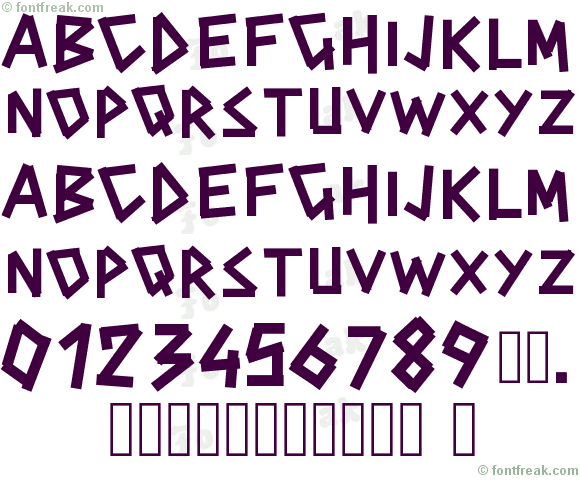
PWCINDERBLOX
PWCINDERBLOX is a distinctive display font designed by Peax Webdesign, categorized within the decorative style. This font showcases a unique visual character, highlighted by its bold stroke weight and playful, irregular shapes that evoke a sense of whimsy and creativity. The characters are well-spaced, allowing for easy readability while maintaining a striking presence, making it ideal for various design projects.
The PWCINDERBLOX font is perfect for a range of applications, including vibrant movie posters that require a touch of uniqueness, eye-catching restaurant menus that stand out to patrons, and engaging event flyers that draw attention. Additionally, it works well for branding elements aimed at children's products or services, where a fun and energetic aesthetic is essential. Graphic designers, small business owners, and content creators will find this font particularly useful as it adds a memorable flair to their work without compromising on legibility.
What sets the PWCINDERBLOX font apart is its ability to blend playful design with functionality. Its quirky yet accessible style makes it suitable for both casual and professional contexts, facilitating creativity without overwhelming the viewer. Whether you're crafting a logo, designing a promotional graphic, or creating a social media post, the PWCINDERBLOX font free download offers a versatile option that enhances your project's overall appeal. This font stands out not only for its visual charm but also for its capacity to convey a sense of fun and modernity, making it a valuable addition to any designer's toolkit. With its distinctive flair, PWCINDERBLOX invites exploration and creativity in every use.